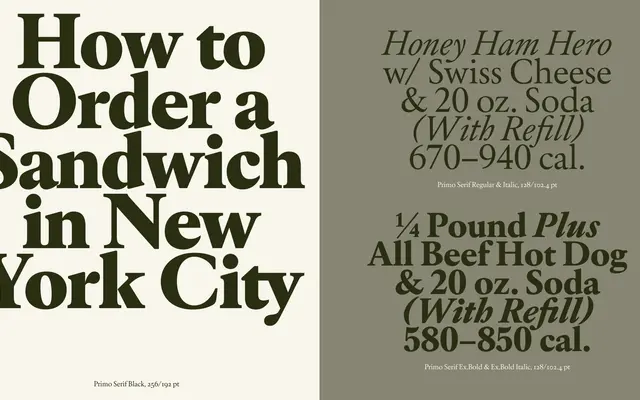
Primo Serif
A serif typeface from Copenhagen-based Playtype, with limited detail available from the page content.
Primo Serif is part of Playtype's type catalogue, though the page provides minimal technical or design detail. The sparse copy leans on a narrative tone rather than specification, leaving weights, language support and design provenance largely undocumented. What is clear is that it sits within Playtype's editorial-leaning output.
The name and foundry context suggest a contemporary serif design; without further classification detail on the page, it is categorised as a general contemporary serif.